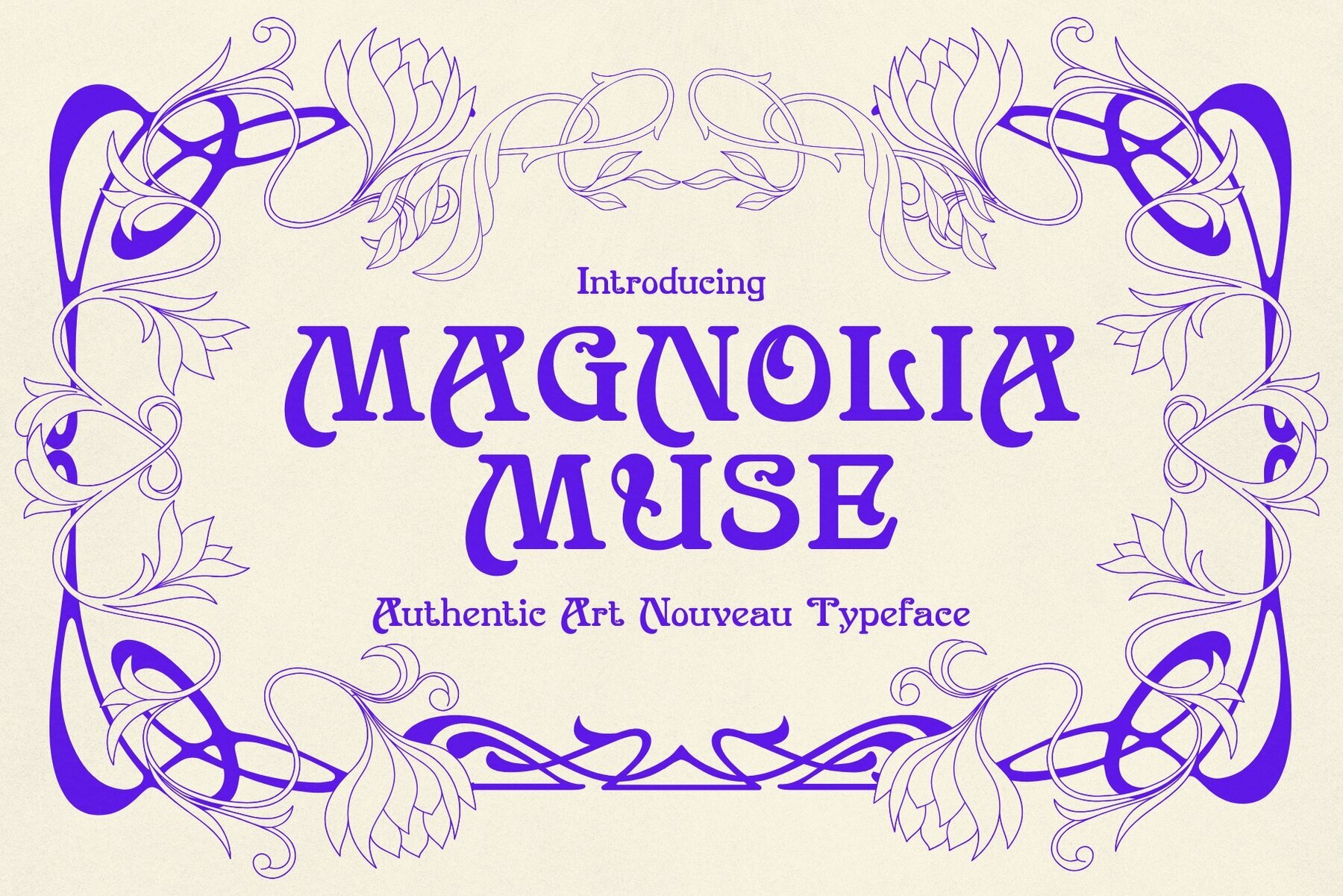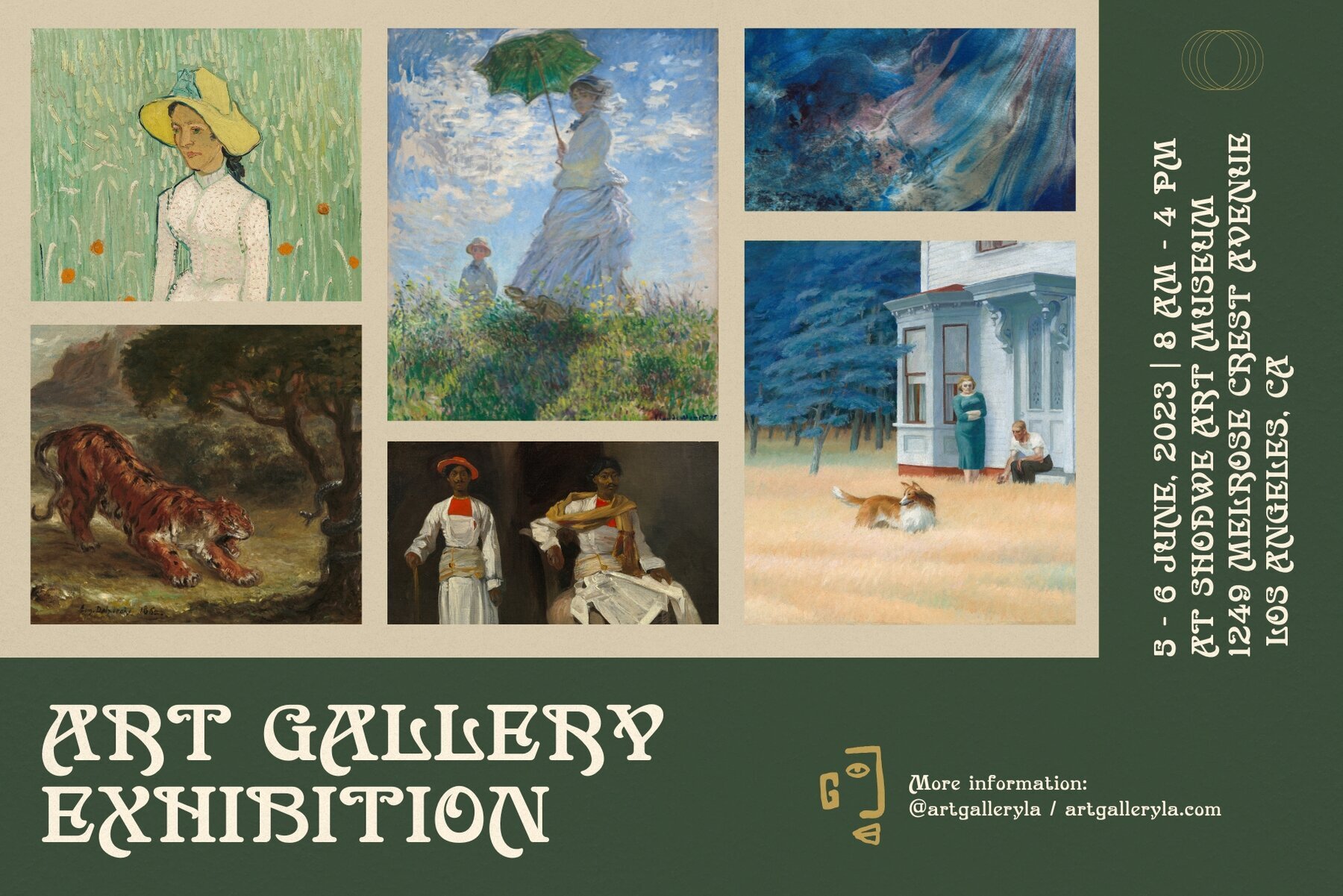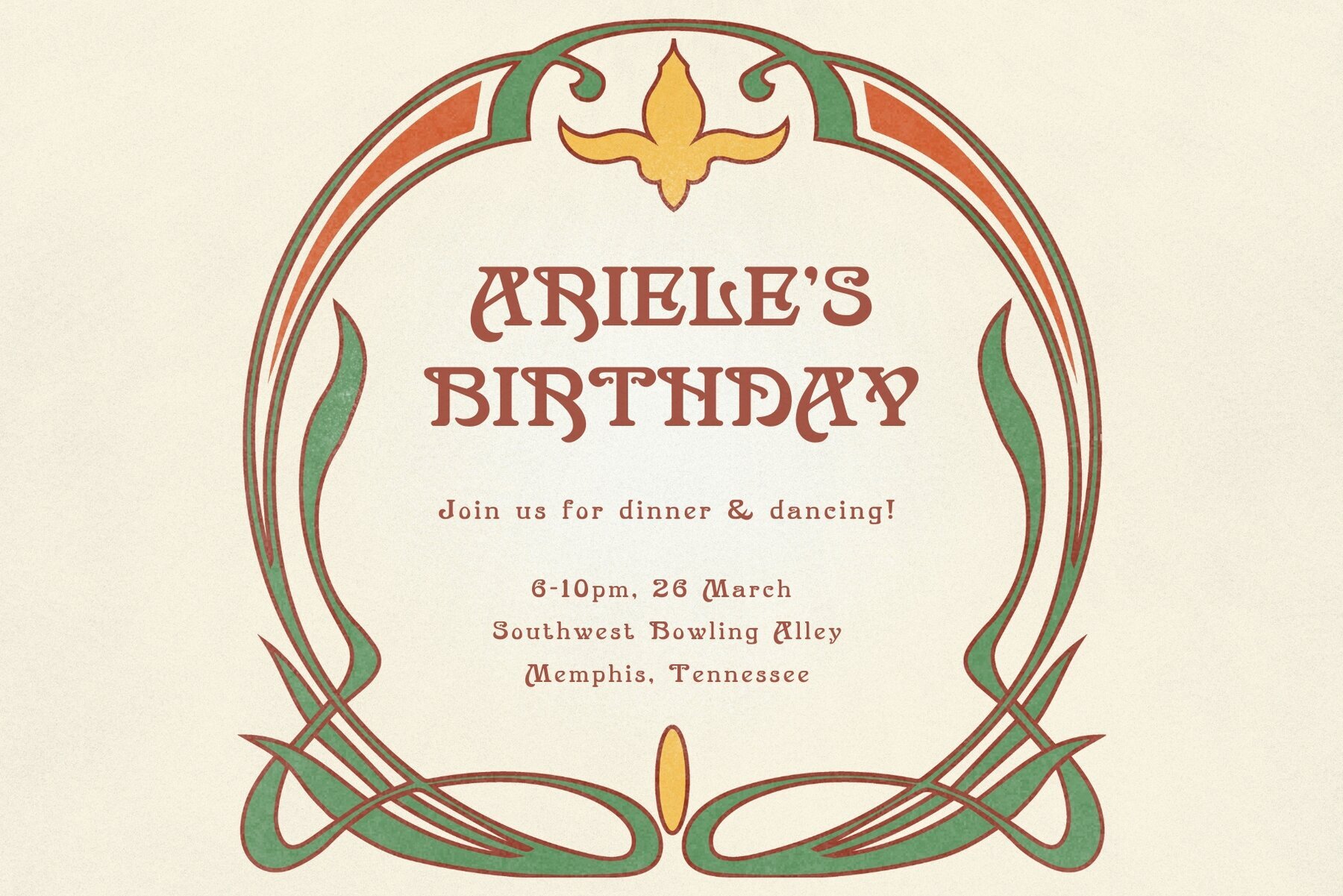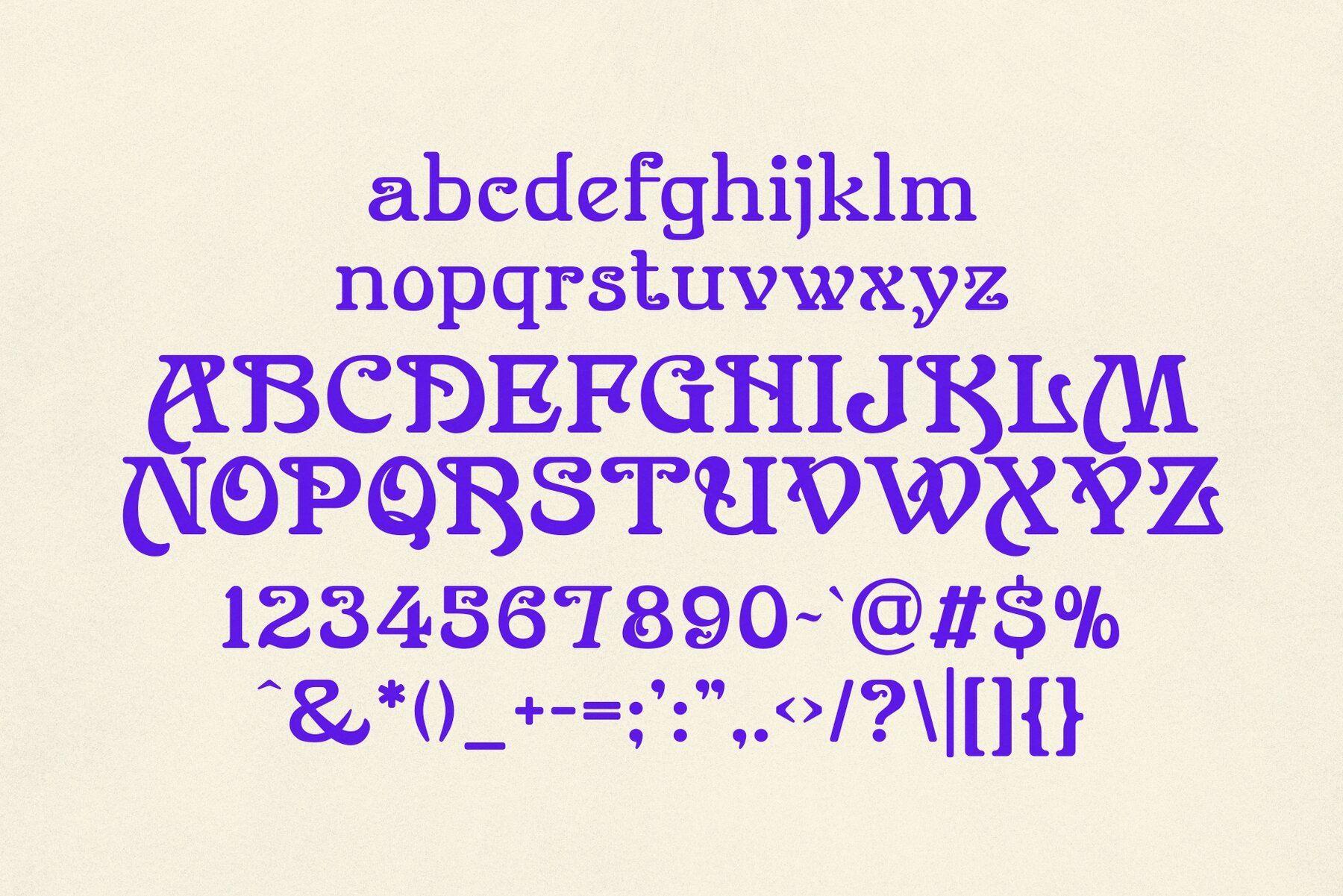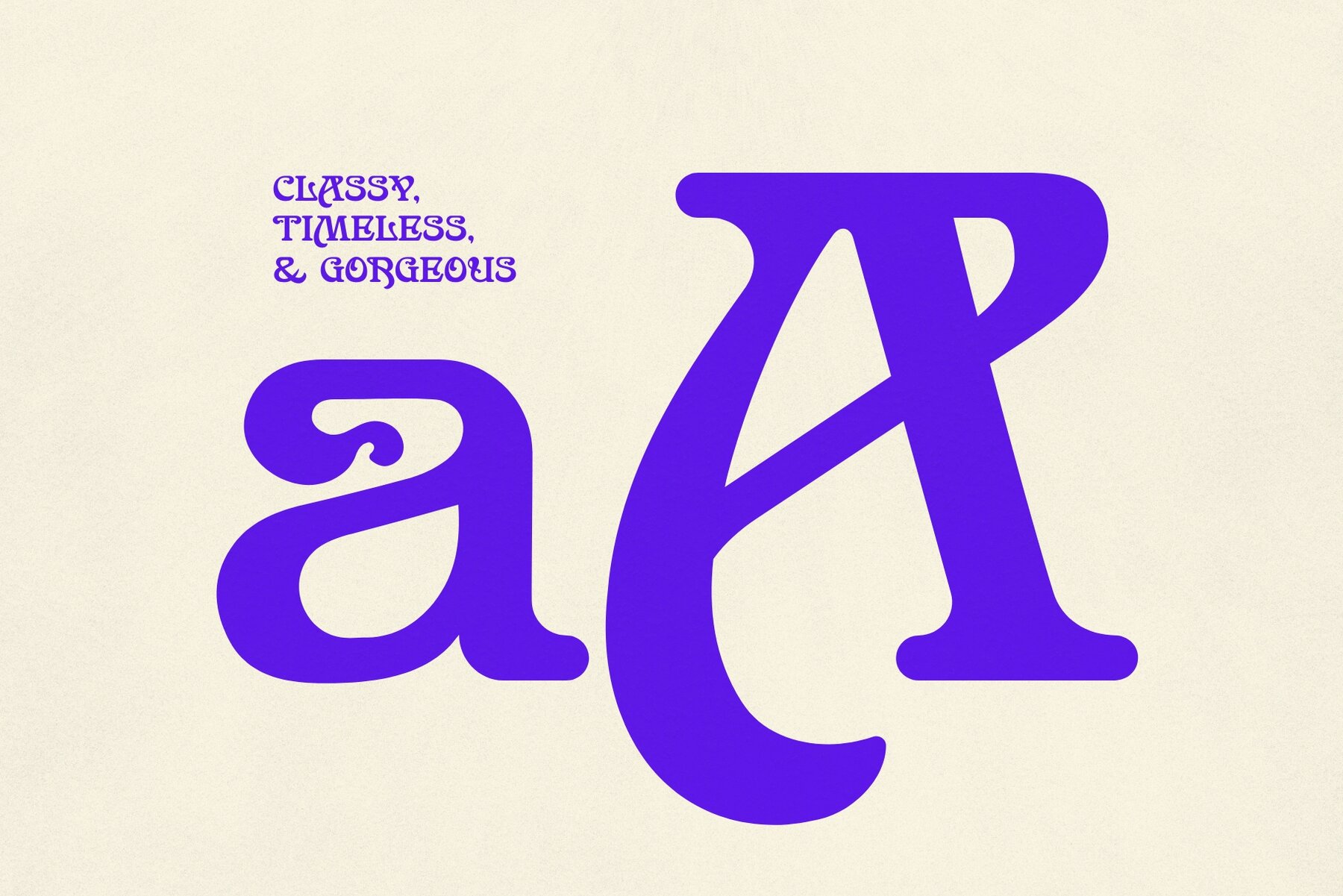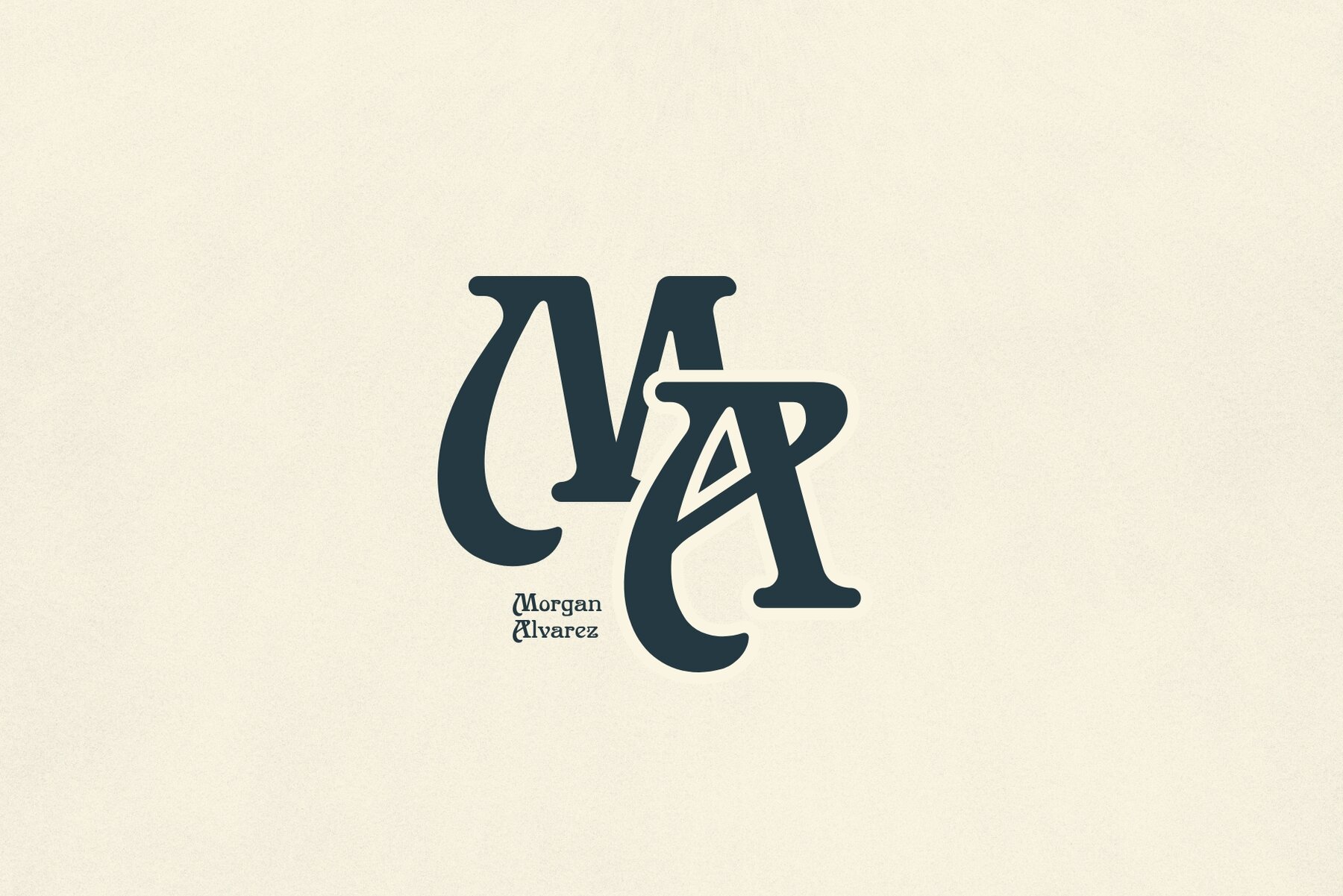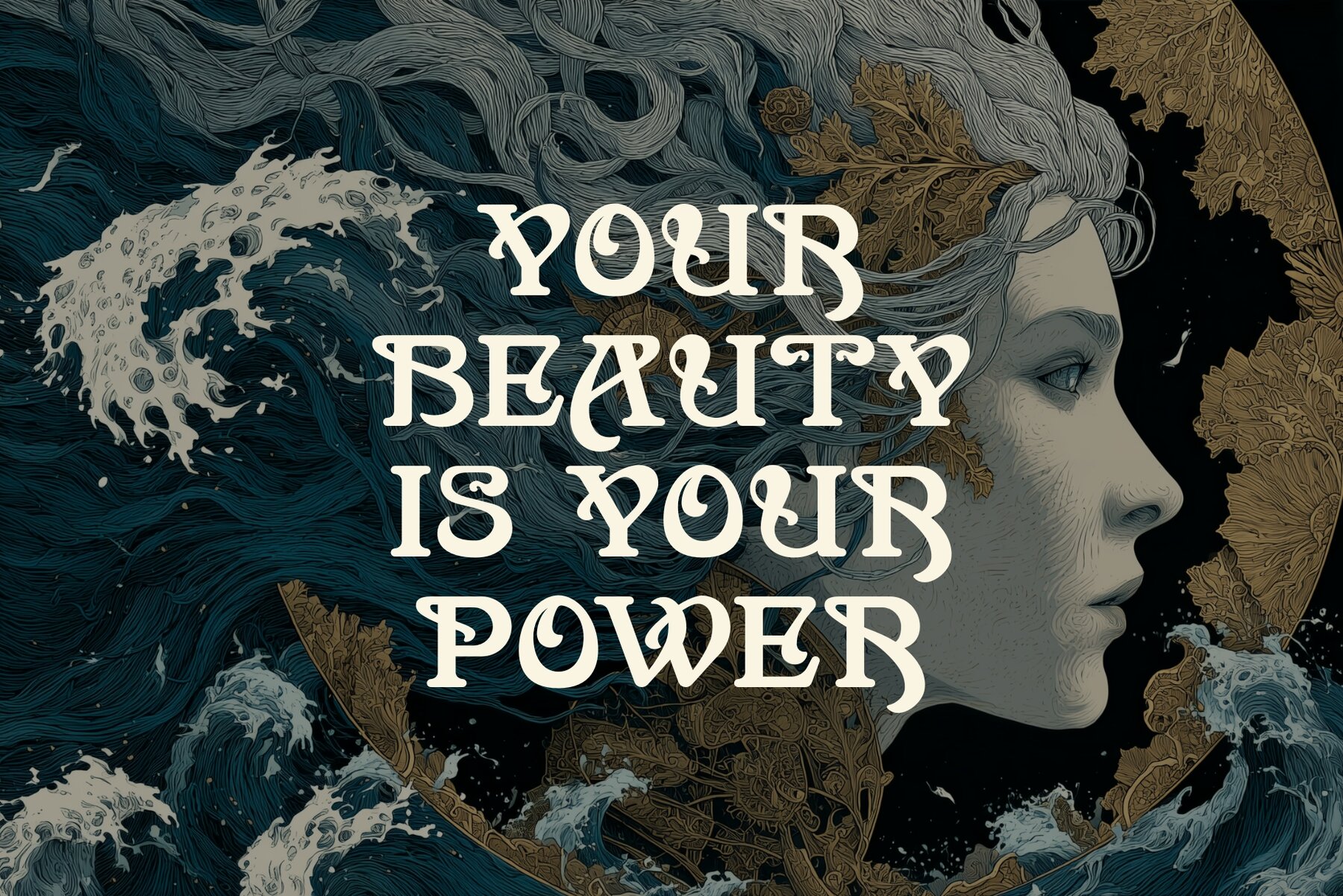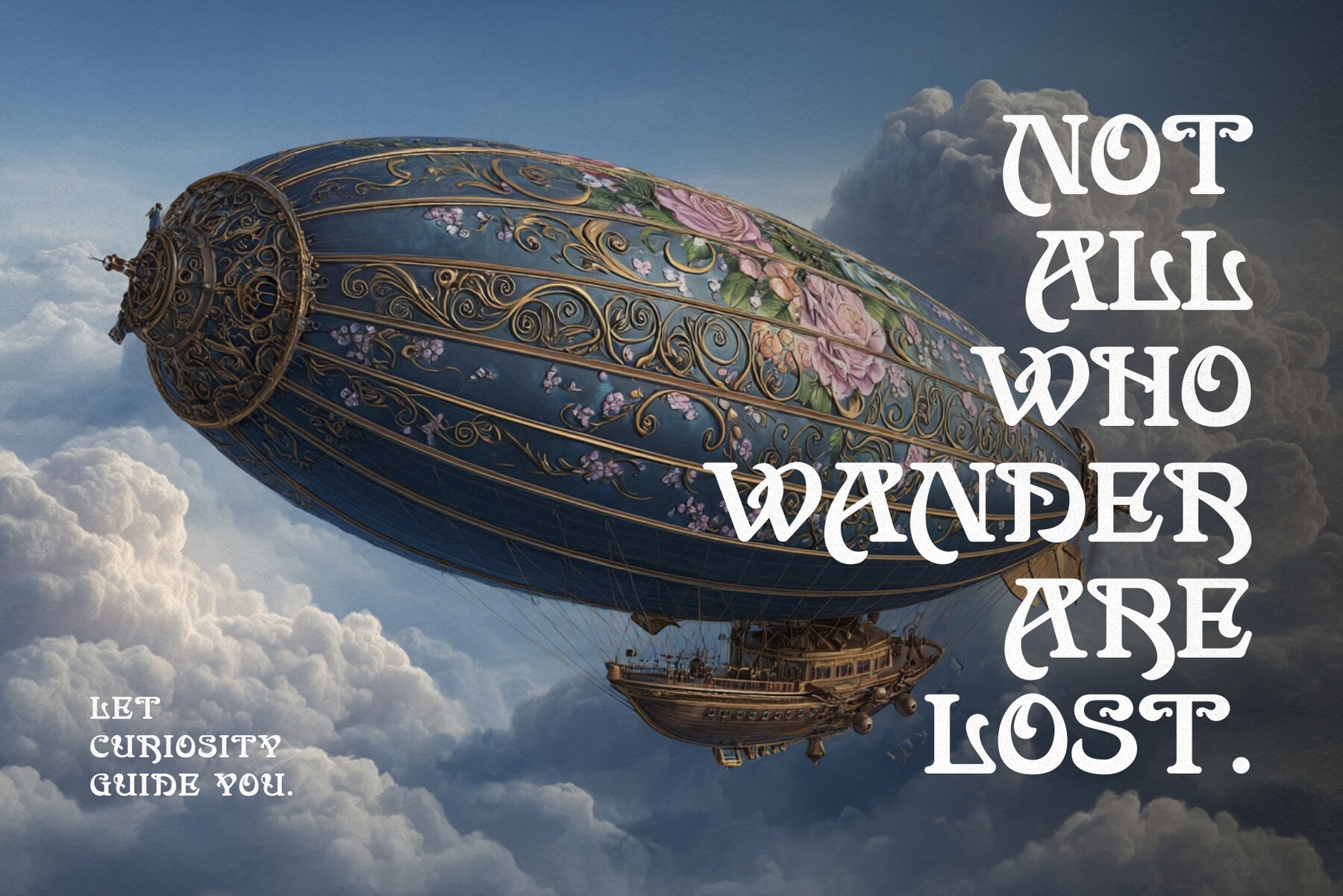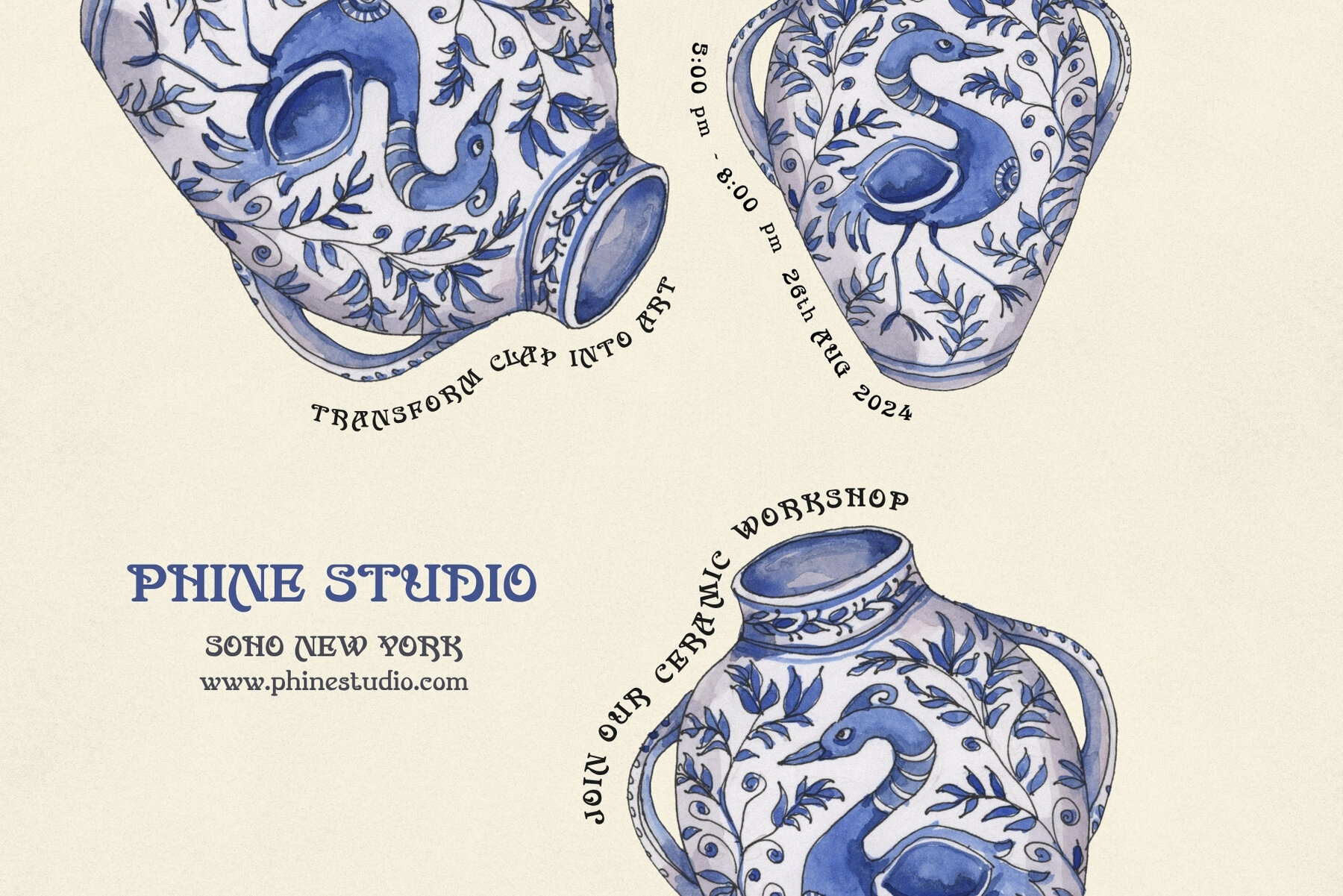
Magnolia Muse Font
Magnolia Muse
Step into a golden age of beauty and elegance with Magnolia Muse, a breathtaking typeface that faithfully channels the spirit of the Art Nouveau era (1890–1910). Inspired by the ornamental flourish and flowing lines that defined turn-of-the-century design in Europe and the United States, this typeface is a love letter to the decorative arts that once adorned posters, architecture, and fine print alike. Meticulously crafted with historical accuracy, Magnolia Muse captures the organic curves, botanical motifs, and romantic flair that defined artists like Alphonse Mucha and Hector Guimard. Every glyph is infused with subtle details, arching stems, whimsical loops, and natural symmetry, that make your typography feel alive. Whether you're designing luxurious packaging, vintage posters, editorials, or branding steeped in old-world charm, Magnolia Muse will stop viewers in their tracks. This isn’t just a font. It’s a timeless muse for creatives who long to bring elegance, sophistication, and a touch of history into the modern world.